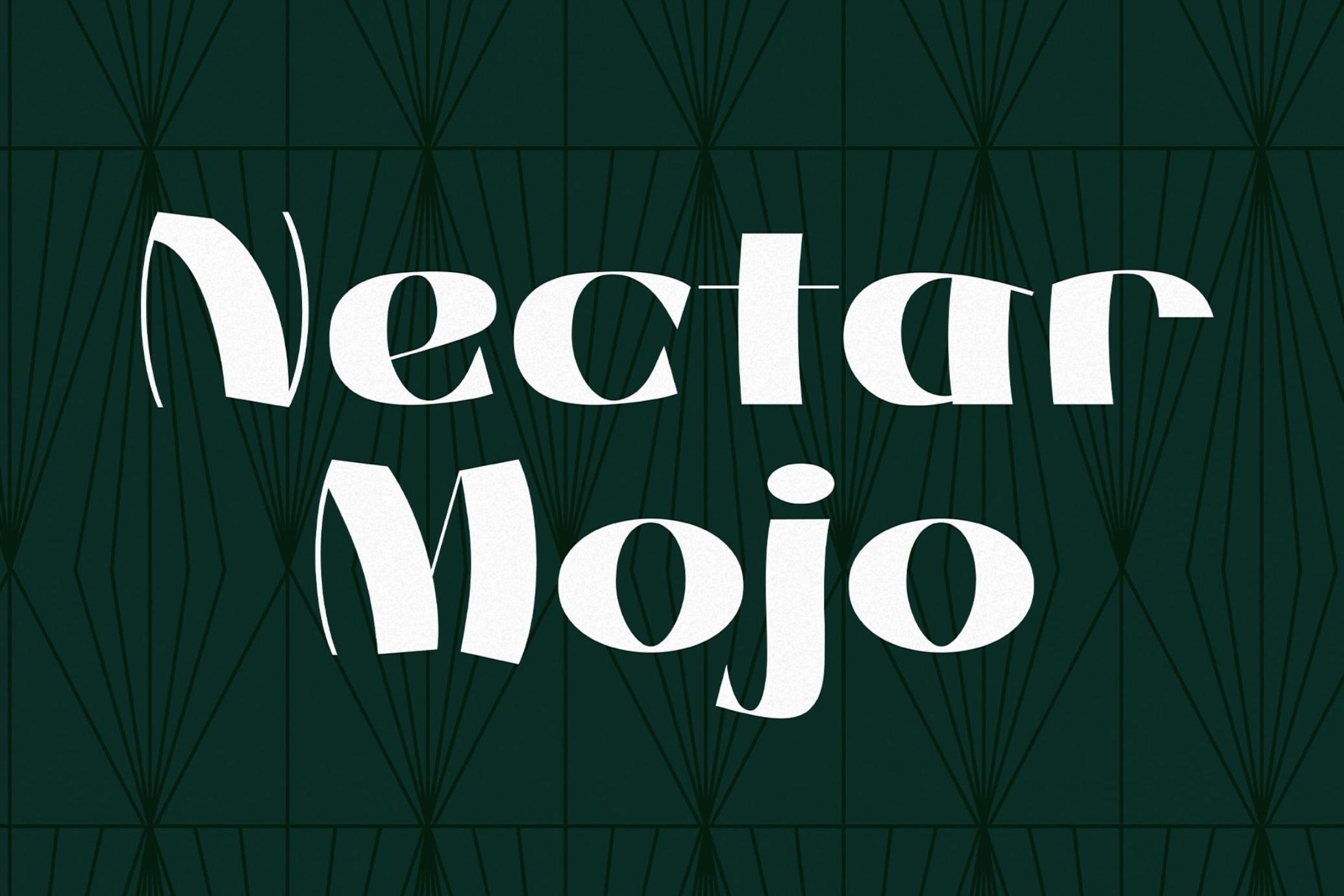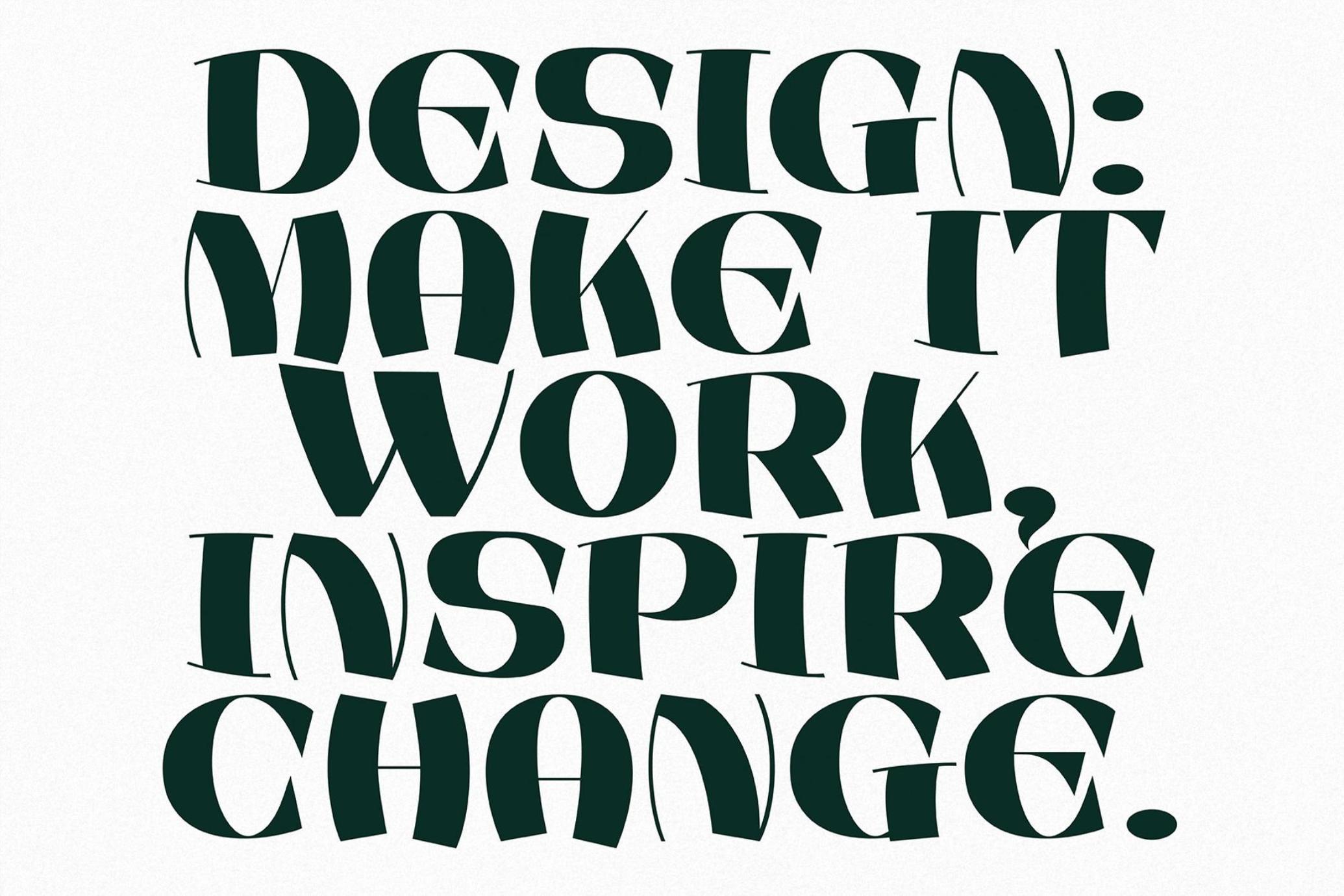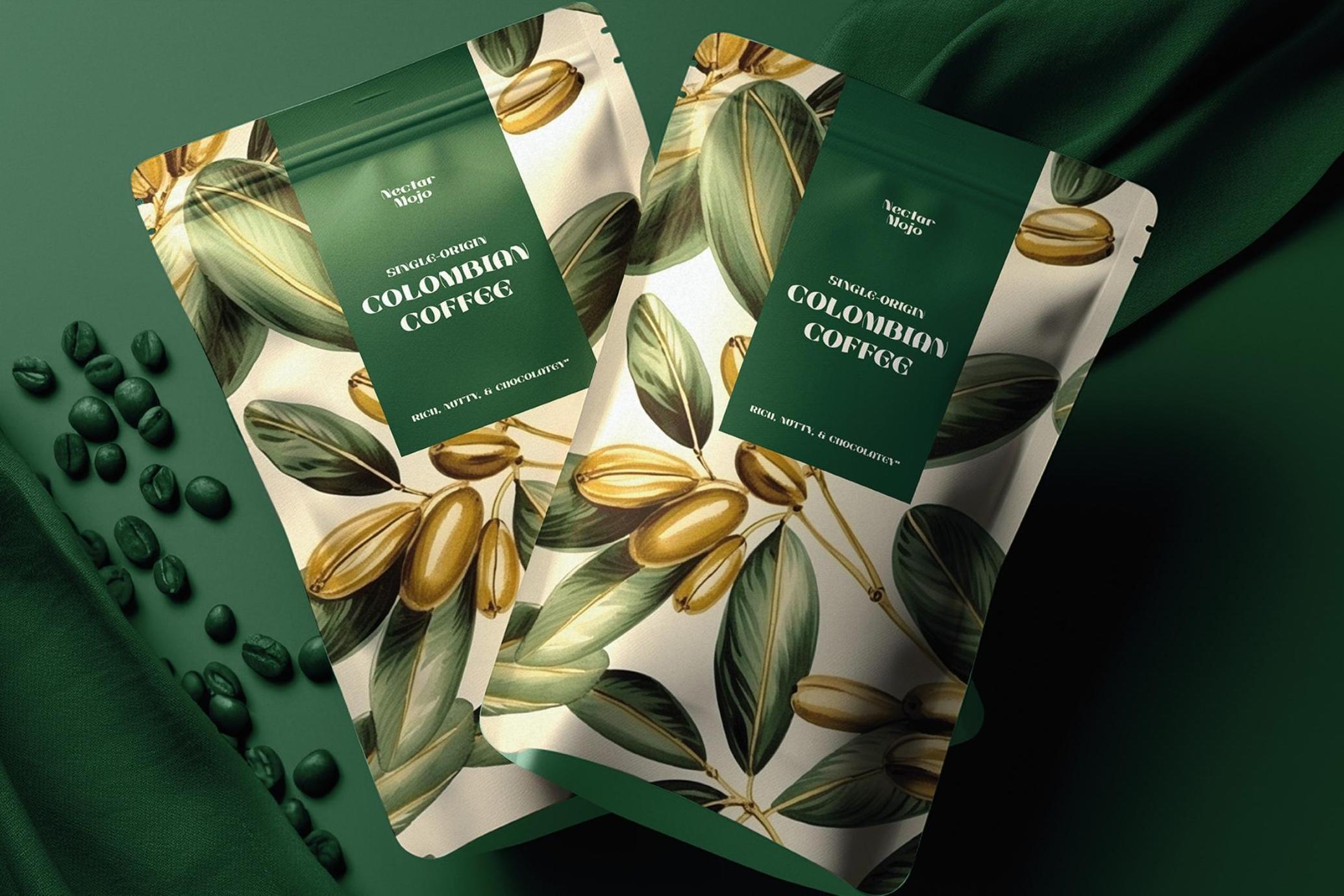
Nectar Mojo - Art Deco Typeface
Introducing Nectar Mojo, a stunning vintage typeface that exquisitely captures the essence of the Art Deco era. This font is a beautiful homage to the roaring twenties, blending the glamour and sophistication of a bygone era with contemporary design sensibilities. Nectar Mojo is an ode to the opulence and style of the early 20th century, making it perfect for projects that require a touch of timeless elegance.
The font's unique character is drawn from the geometric shapes and streamlined curves characteristic of Art Deco design. With its sharp, clean lines and ornate detailing, Nectar Mojo brings a luxurious and refined look to any design. It's ideal for use in branding, packaging, and editorial work, especially for projects that aim to evoke the lavish and hedonistic spirit of the 1920s.
Whether you're crafting a logo for a high-end brand, designing a poster for a jazz club, or creating invitations for a Gatsby-style gala, Nectar Mojo provides a perfect blend of vintage charm and modern flair. Its distinctiveness lies in its ability to transport viewers to an era of jazz, flappers, and exuberant artistry, making it an irresistible choice for designers who wish to infuse their work with a sense of history and grandeur. Nectar Mojo isn't just a font; it's a journey back in time to an age of elegance and extravagance.